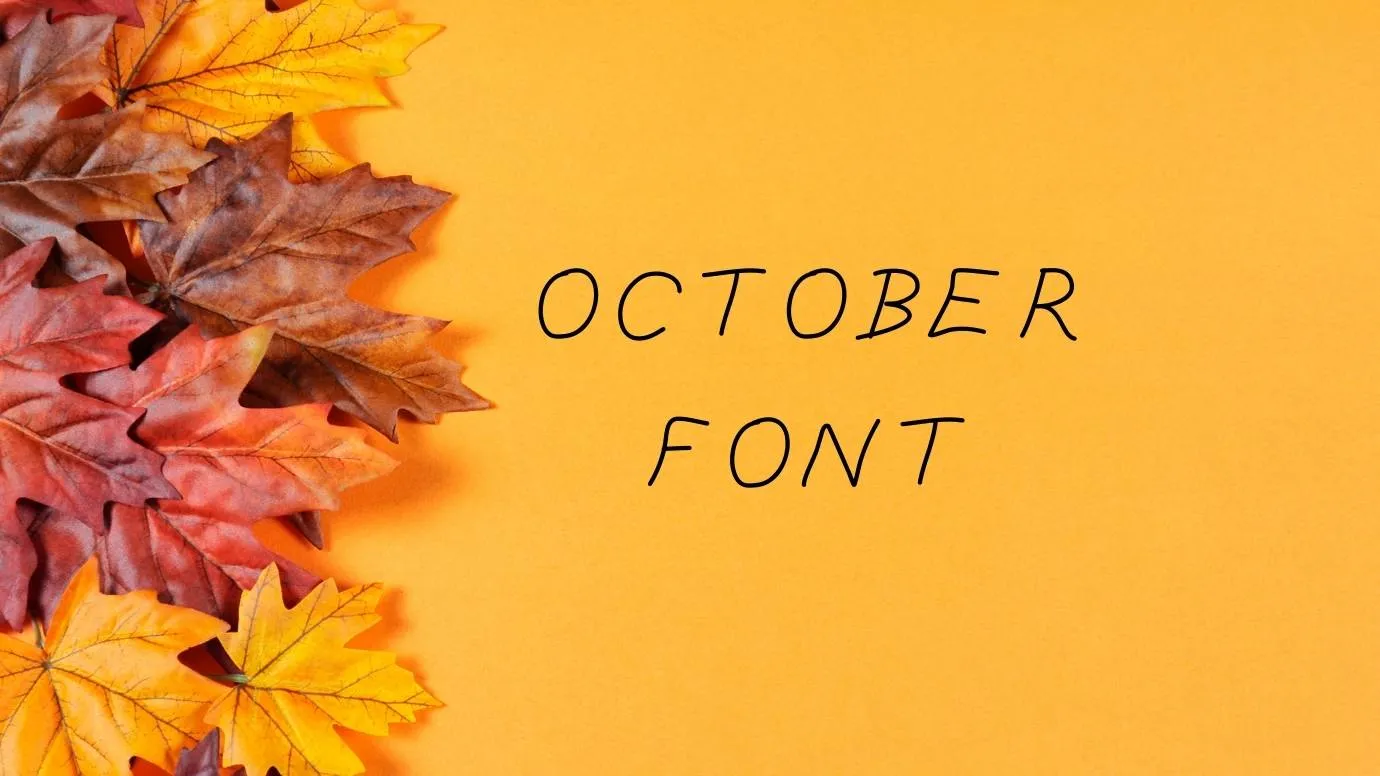
October Font Family is an extraordinary typeface that is named is October font. This font comes in the category of a handwritten font family. Its round letter terminal was made with the rotary cutters of a CNG router.
The stroke widths of the letterforms were changed while changing the size of the cutters. The designer of this typeface is Peter Bilak, who has designed it in 1995 for the Typotheque foundry.
October Font Family
NameOctober Font
DesignerPeter Bilak
FoundryTypotheque
StyleHandwritten
Date Released1995